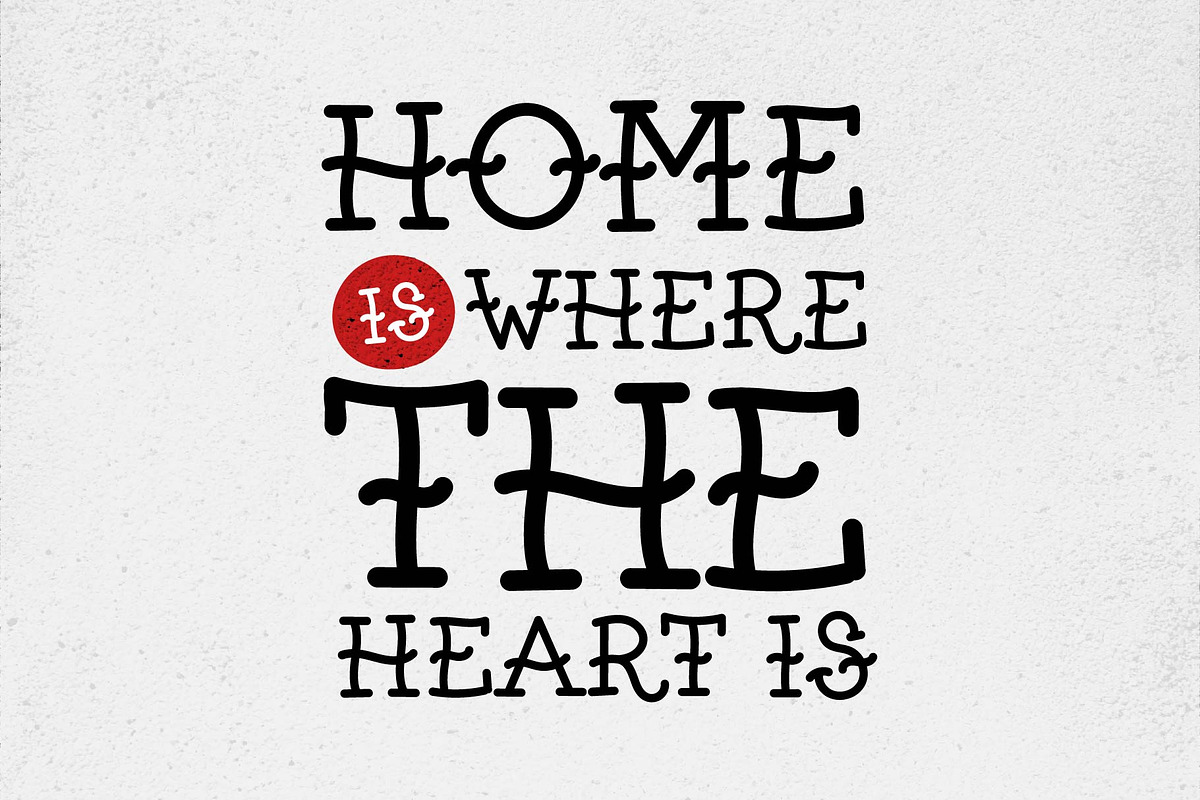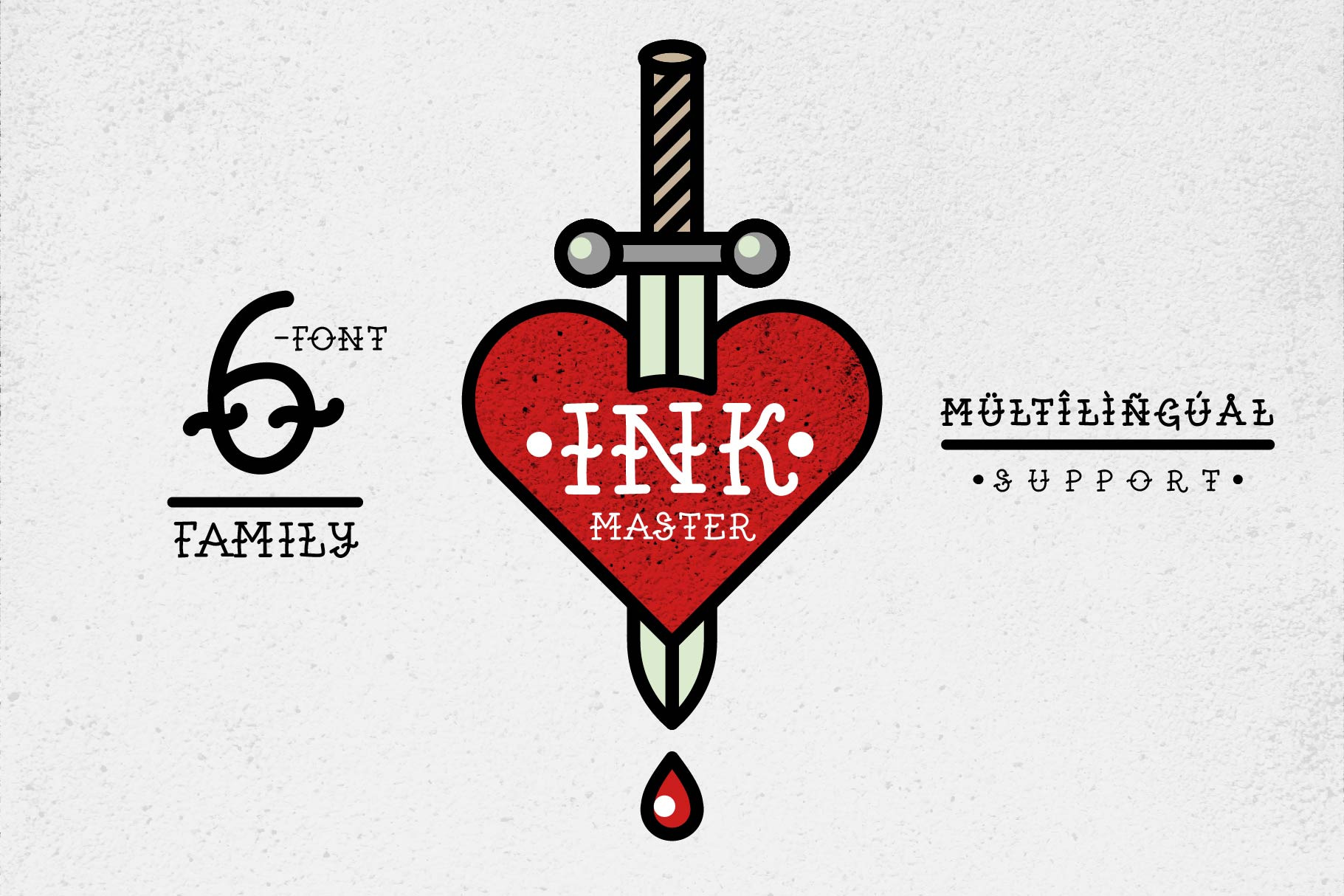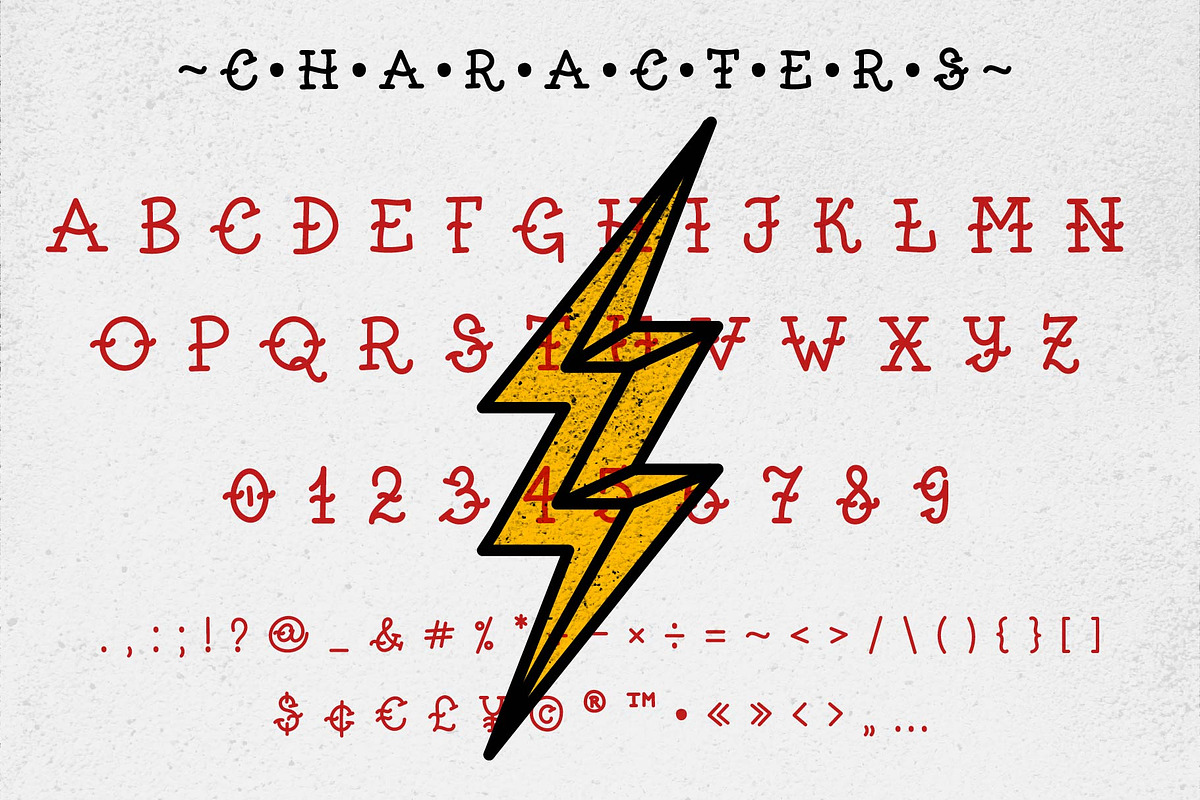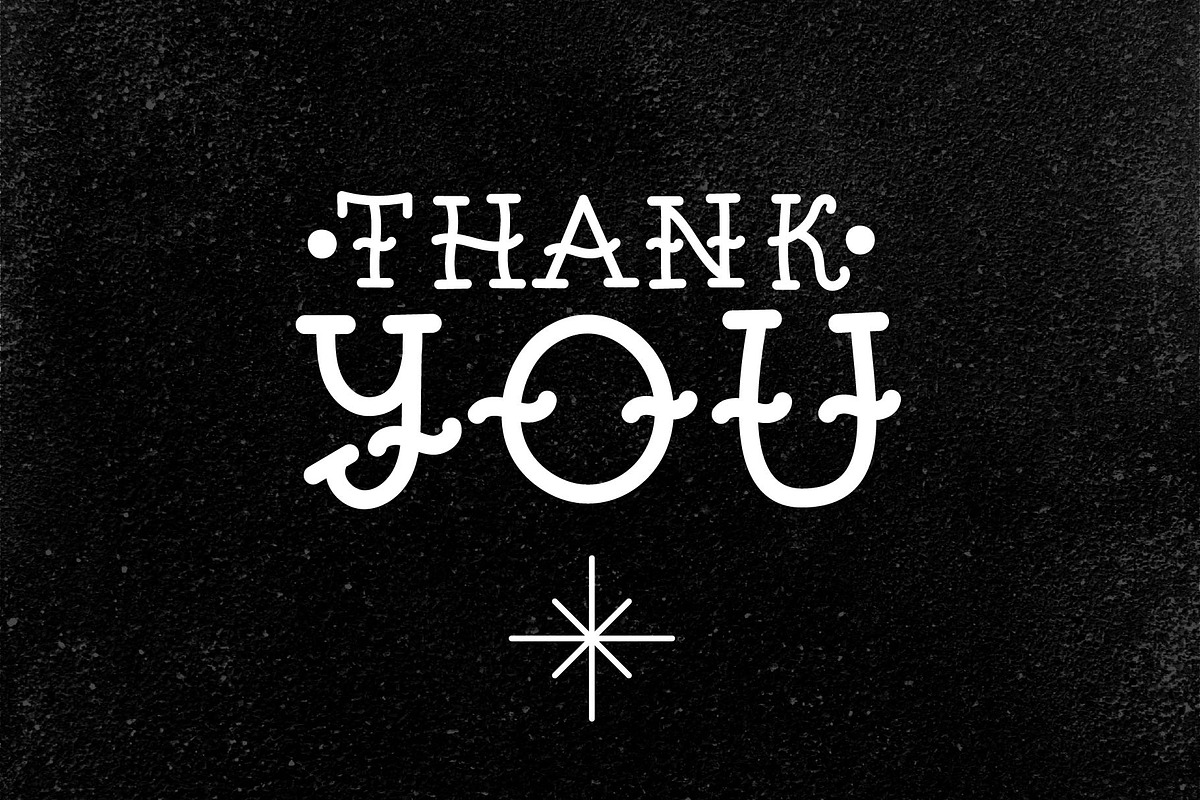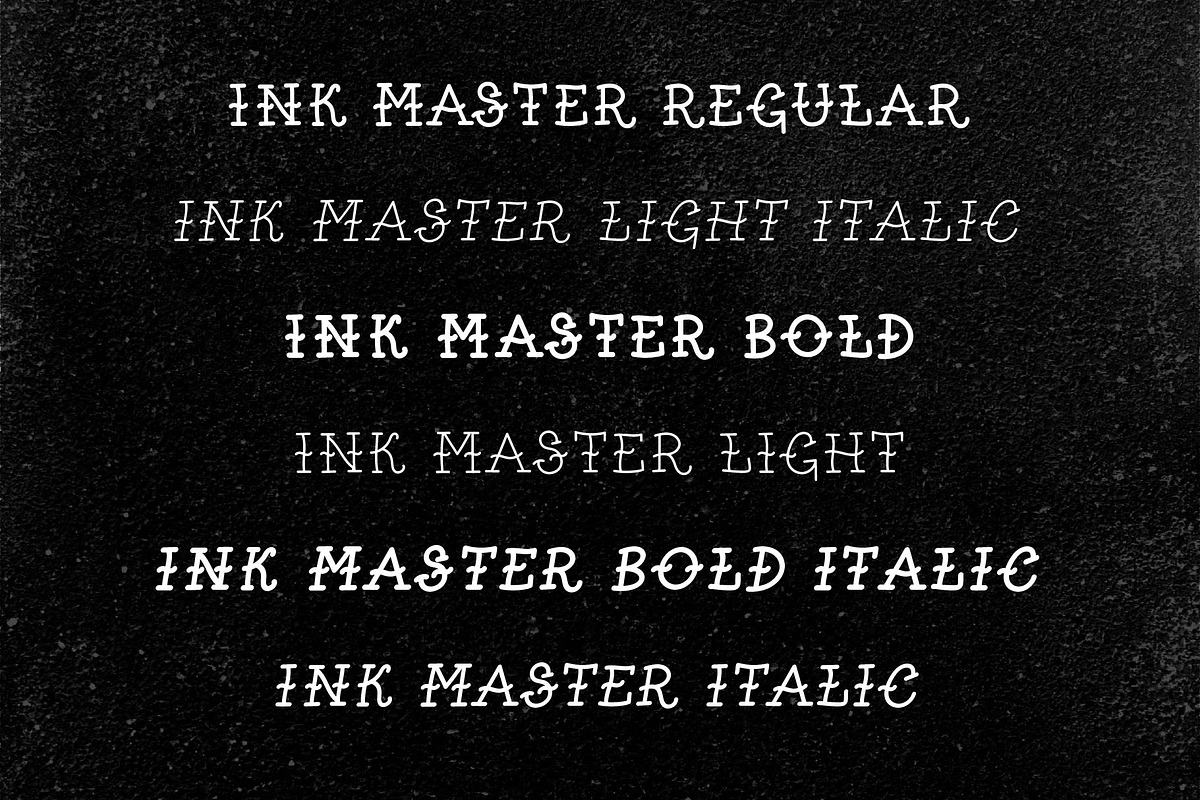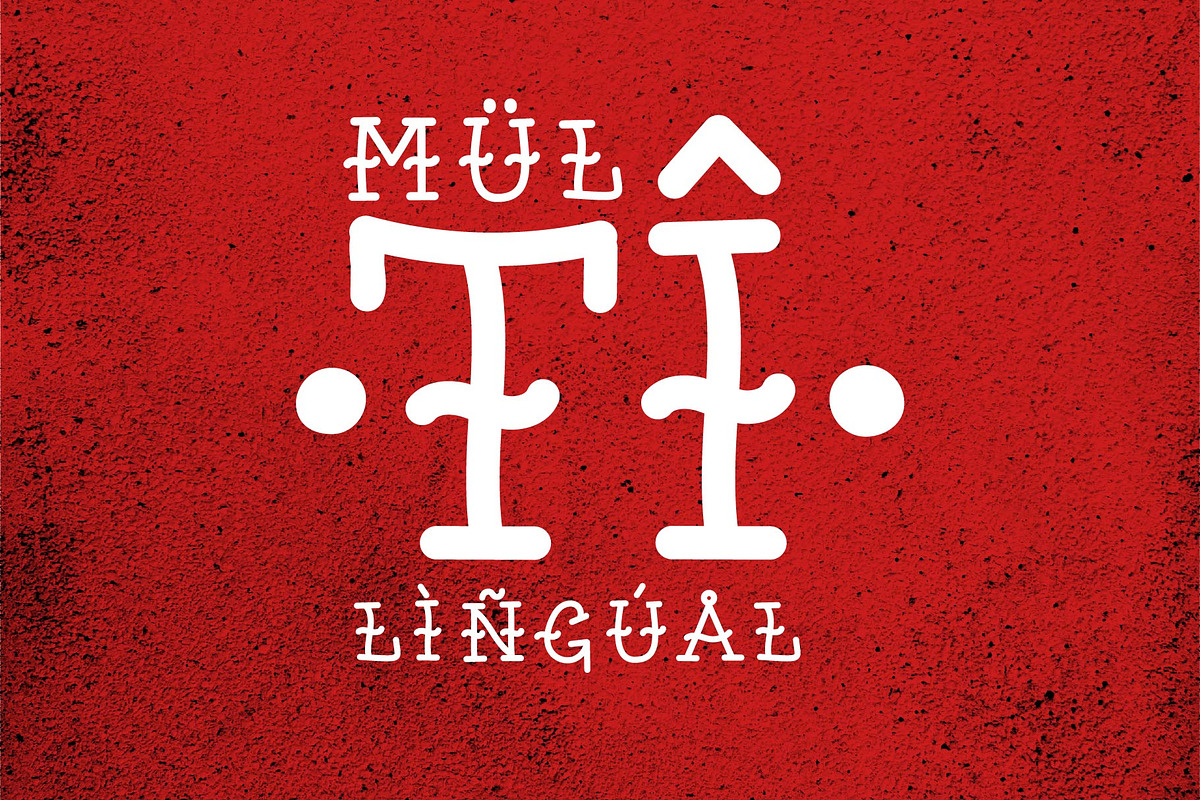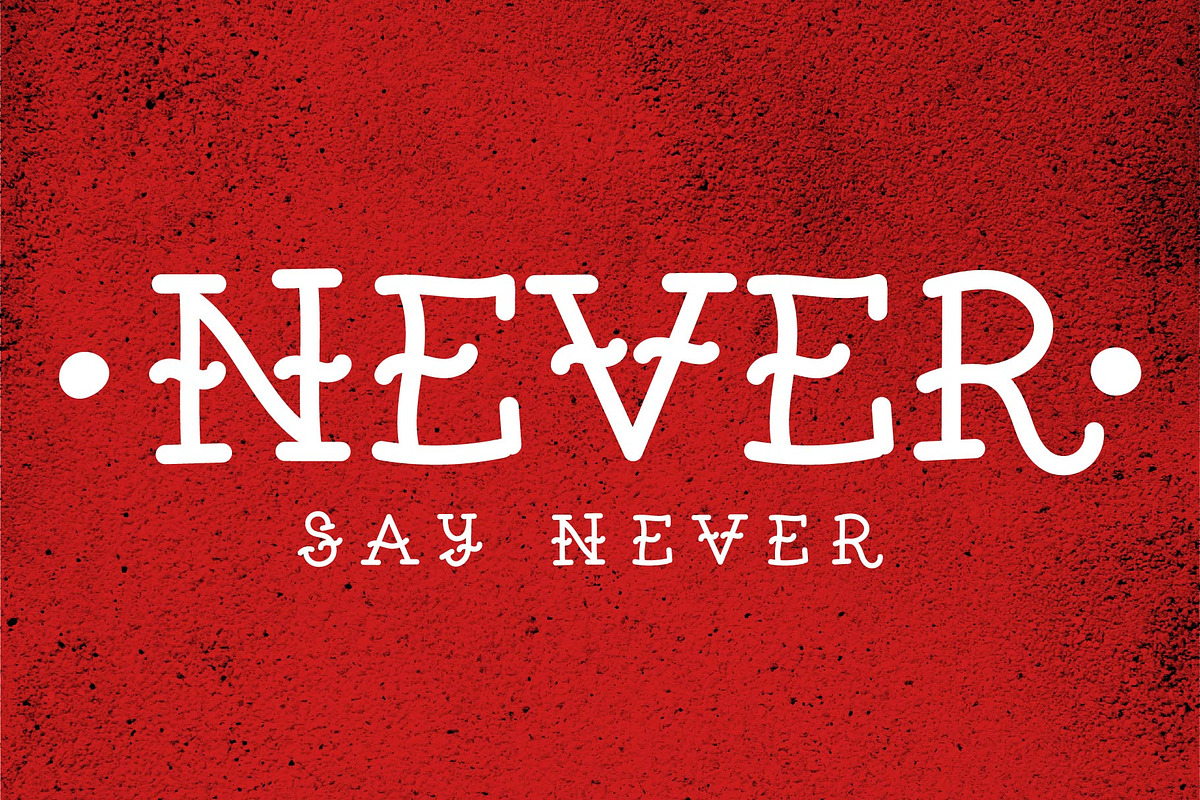
Ink Master old school tattoo font
Introducing Ink Master
Ink Master is a vintage, old school tattoo art inspired typeface. It is perfect for:
- Logos
- Posters
- Headlines
- Apparel
- & more
- Ink Master Regular
- Ink Master Bold
- Ink Master Light
- Ink Master Italic
- Ink Master Bold Italic
- Ink Master Light Italic
- Multilingual support for various languages including: French, German, Spanish, Portuguese, Italian, Dutch, Finnish, Swedish, and more